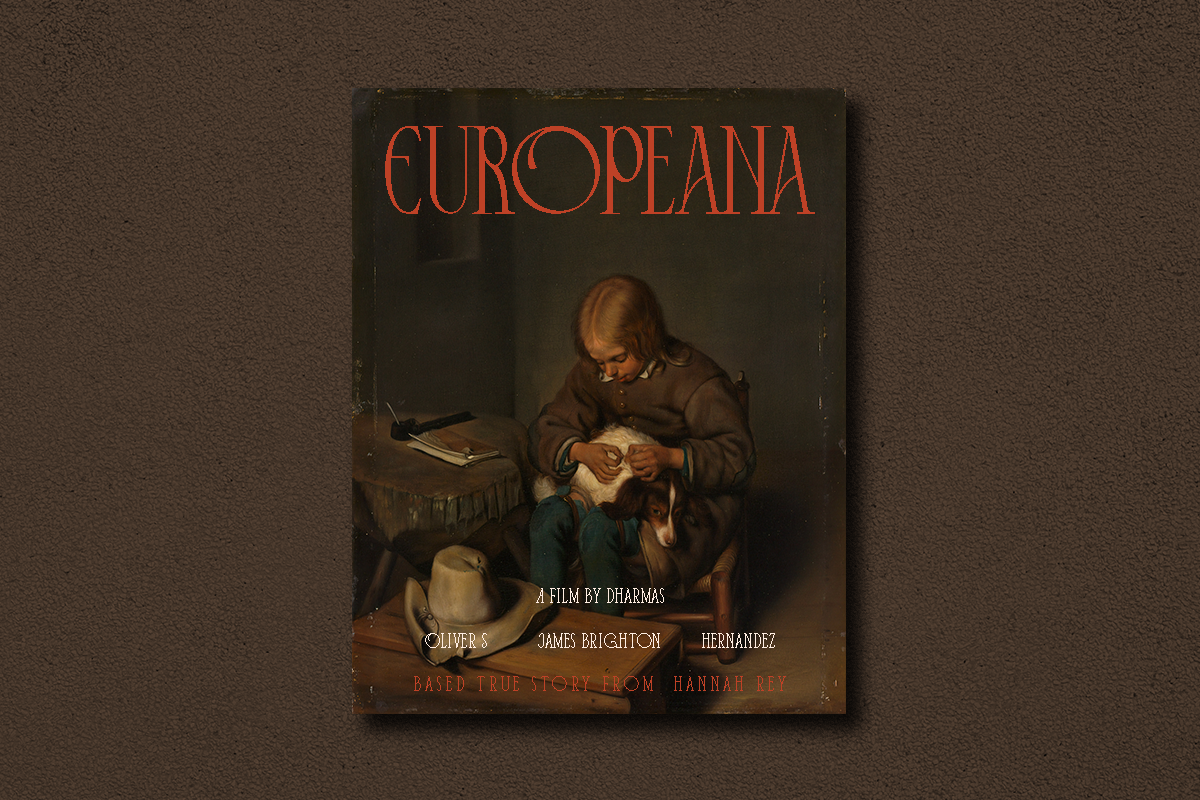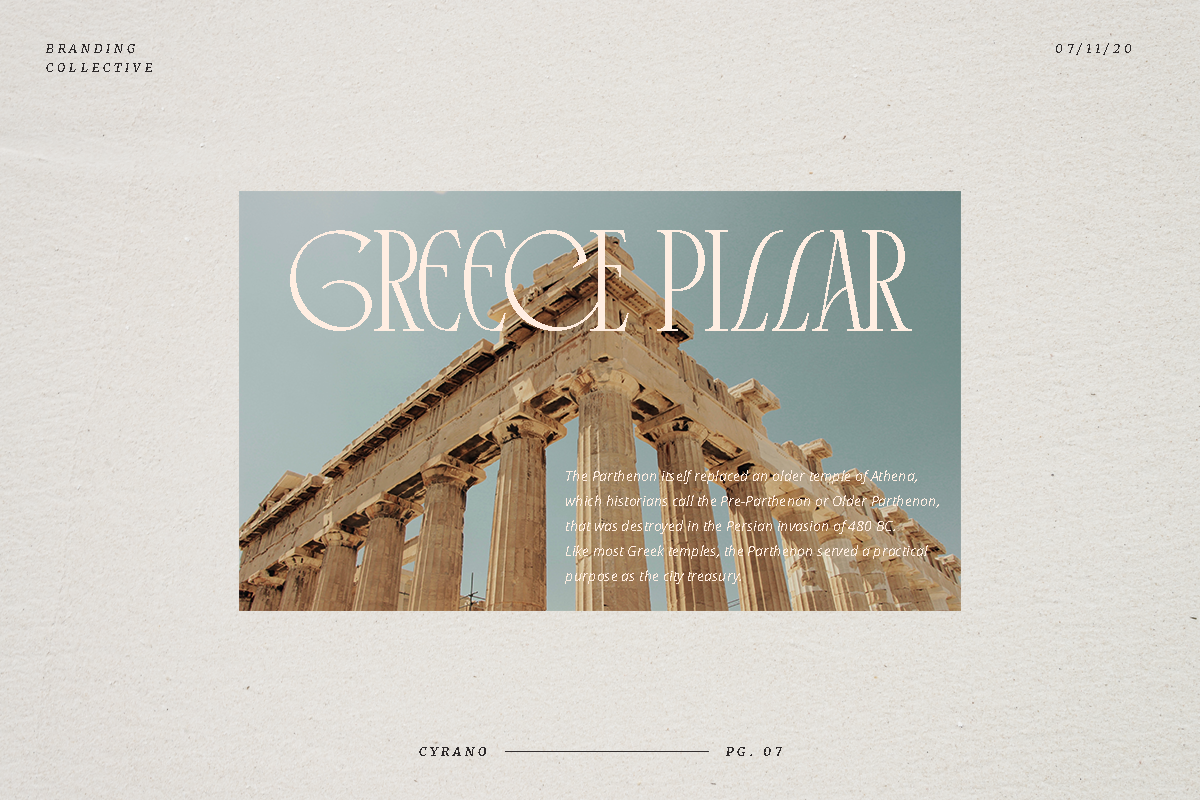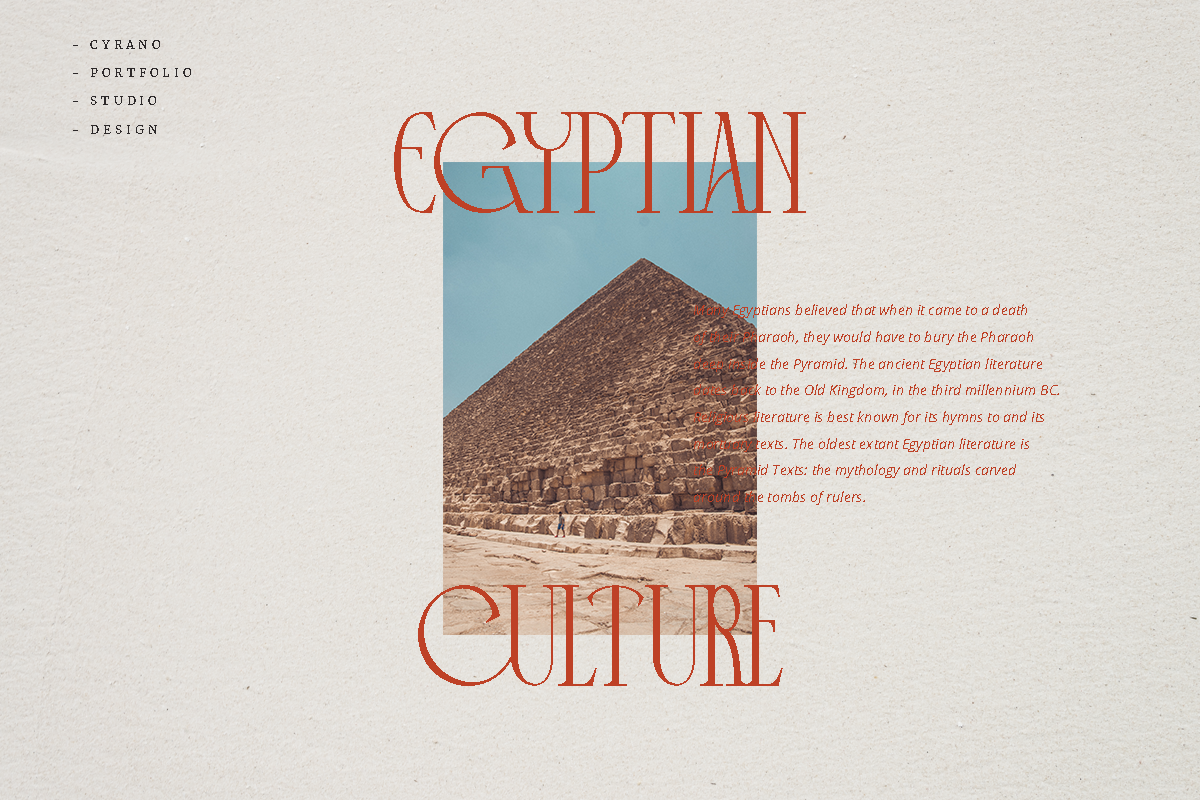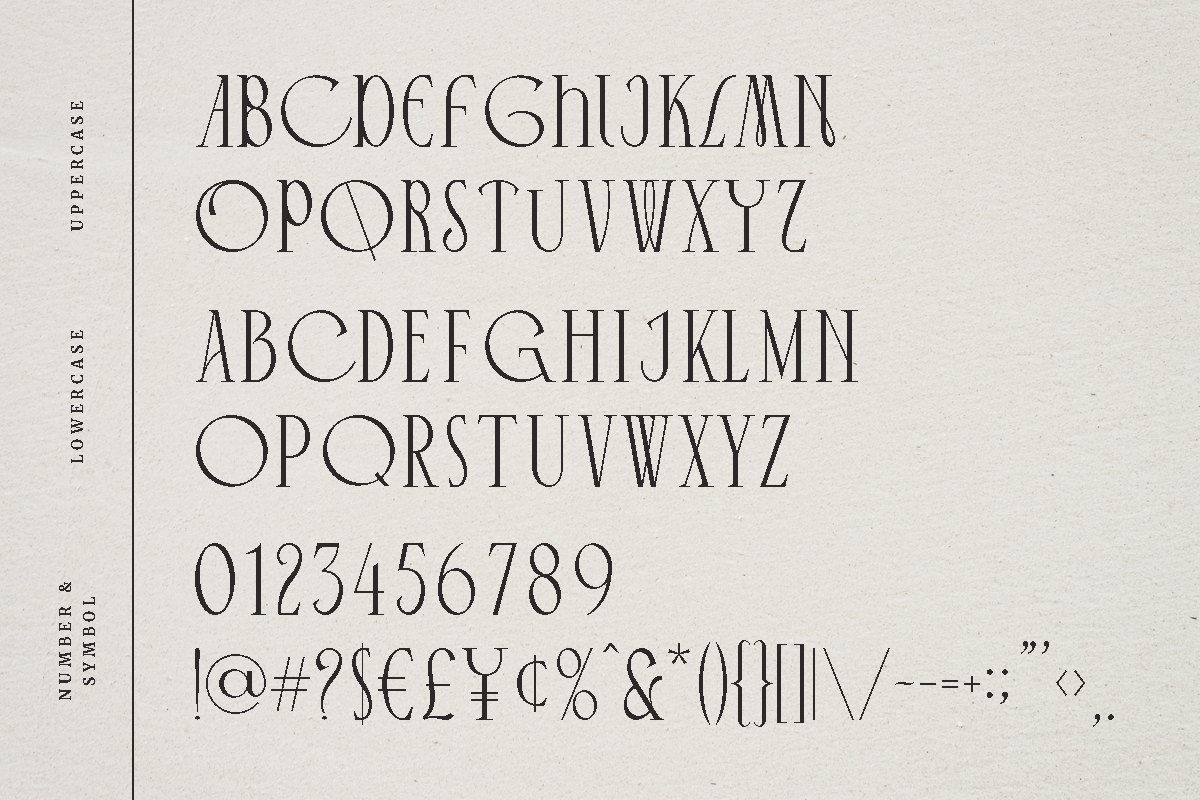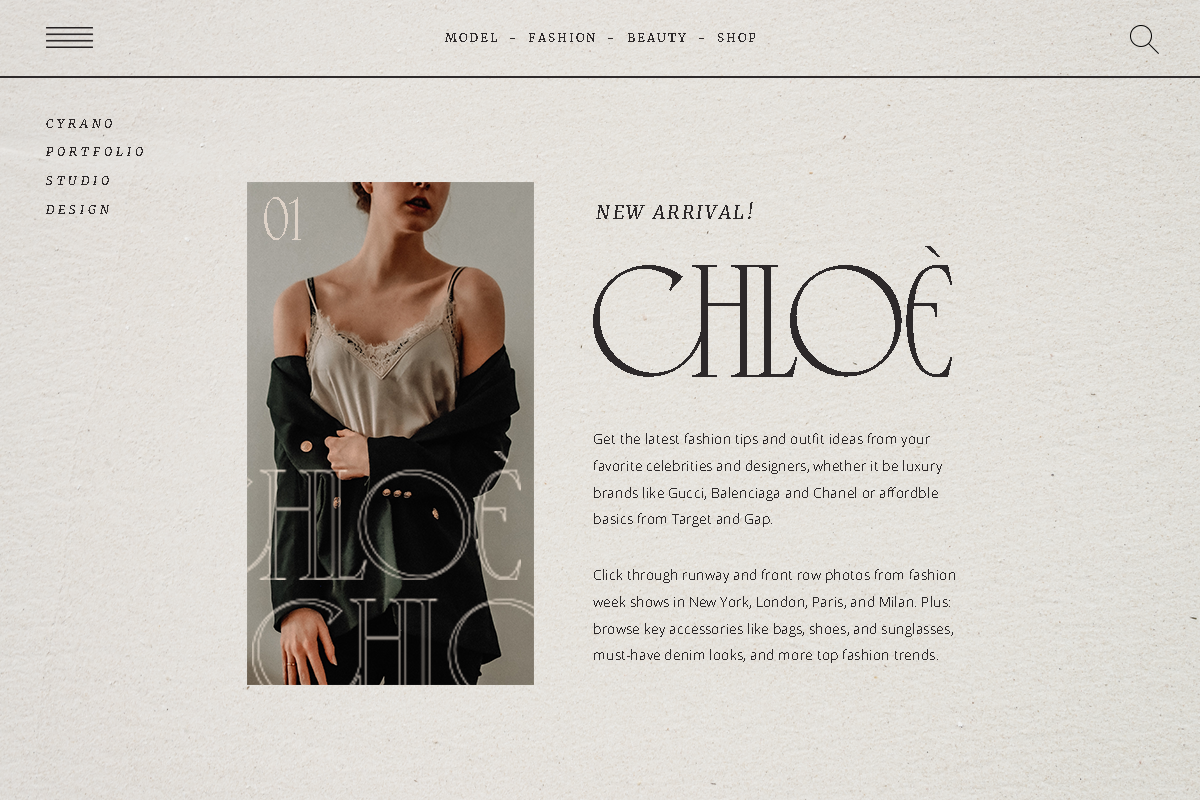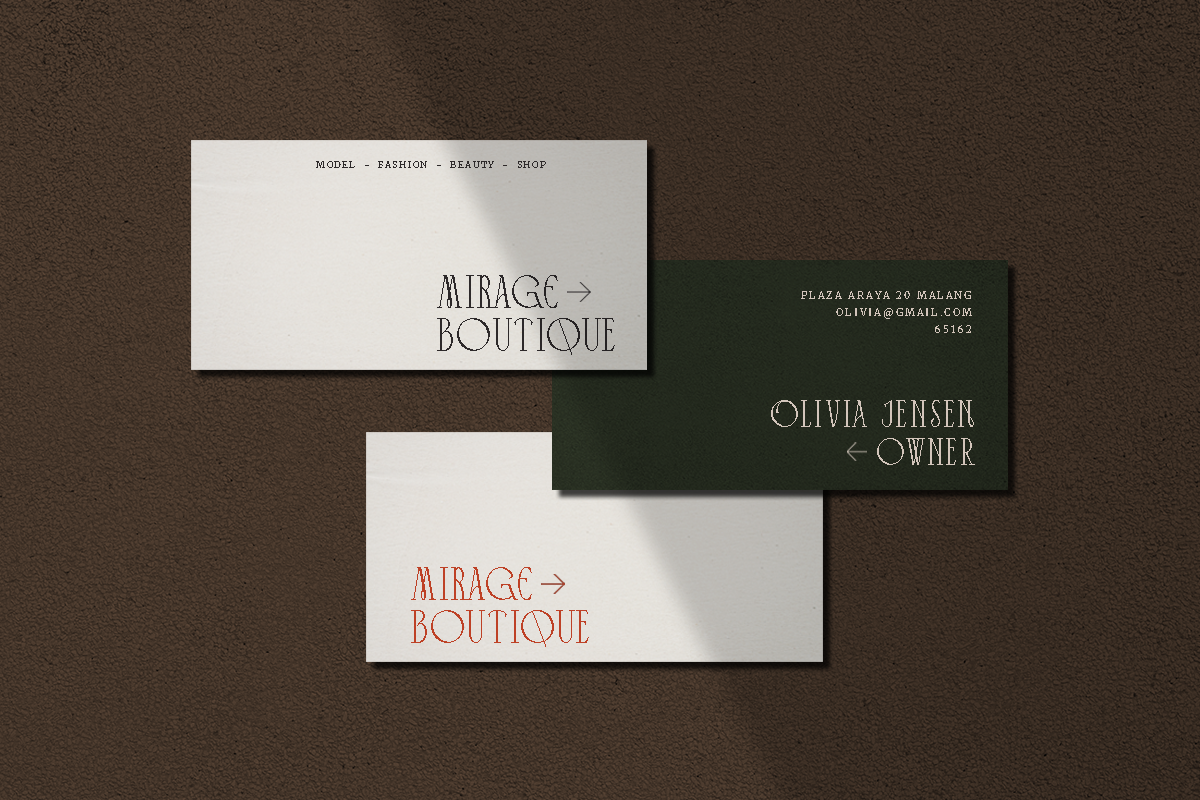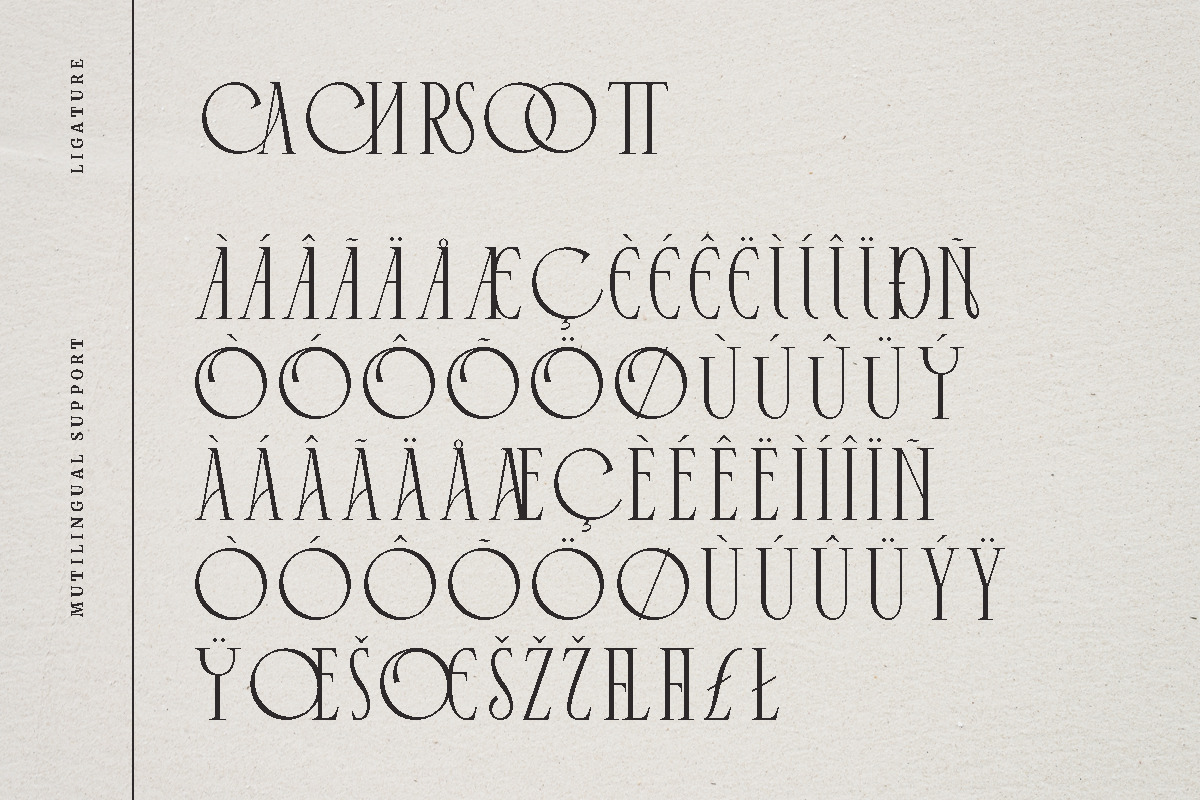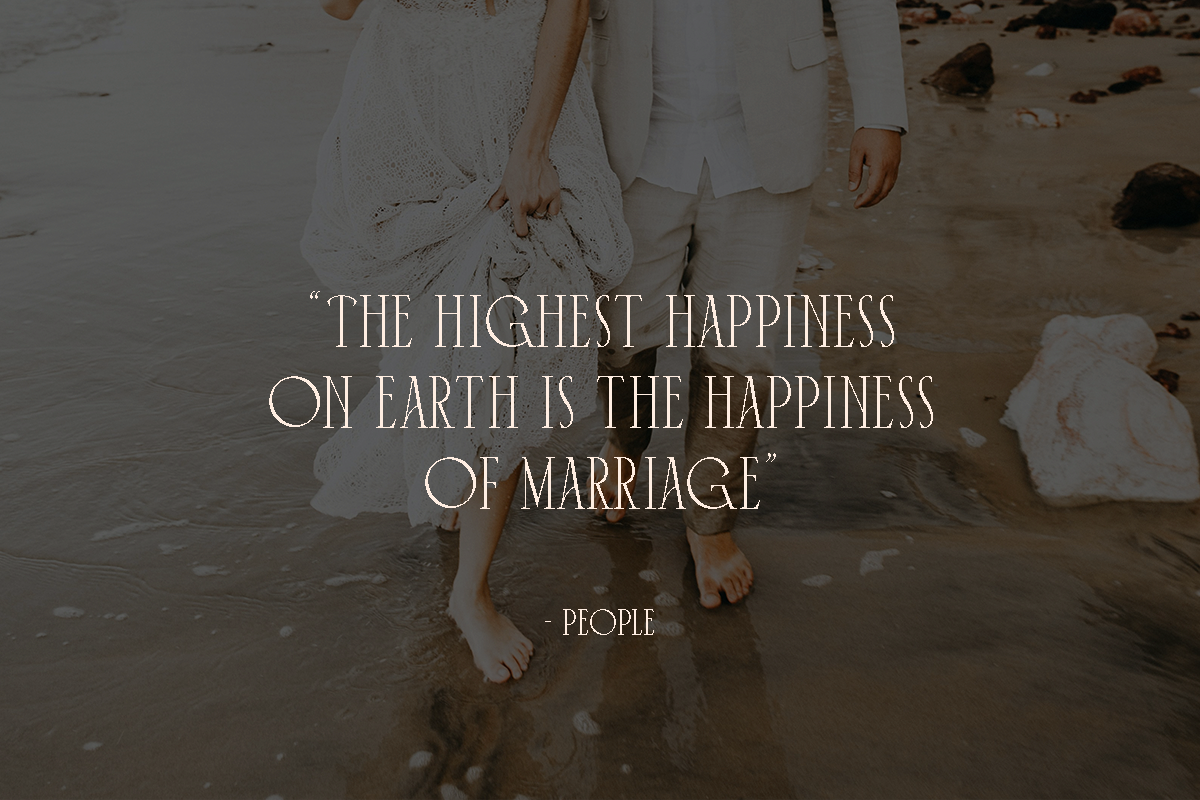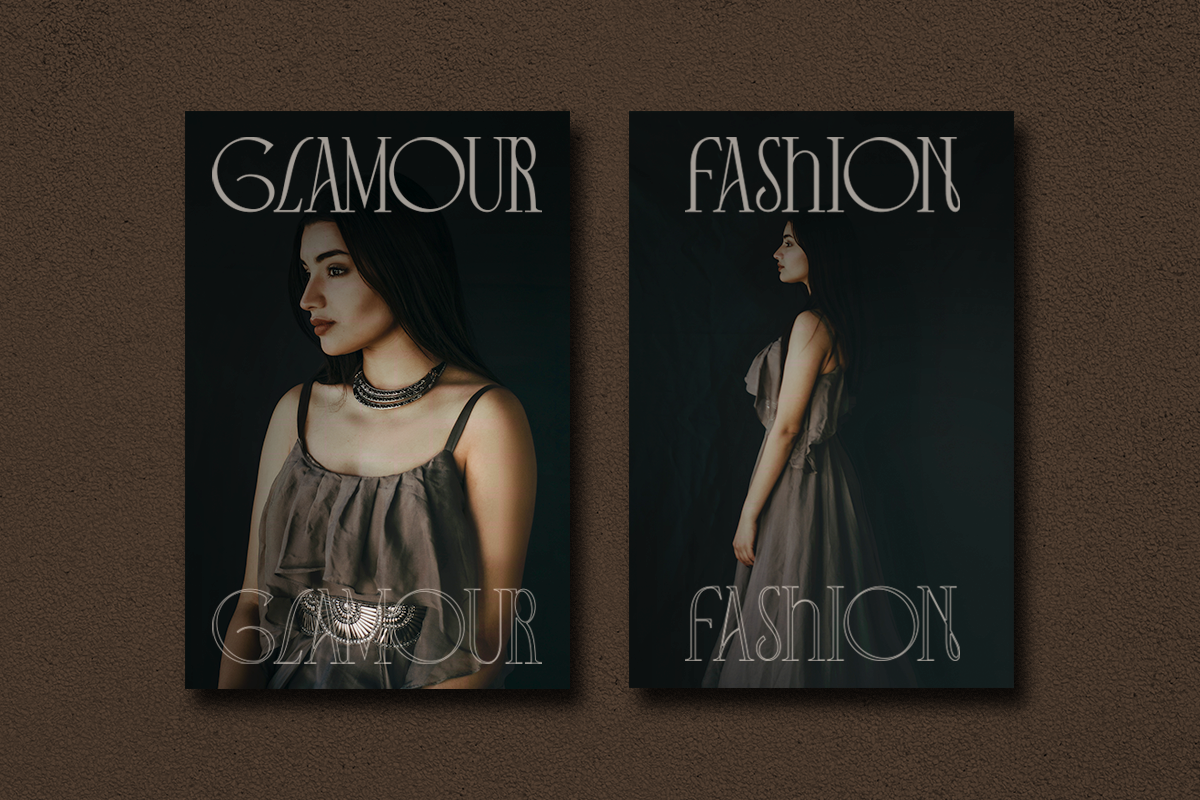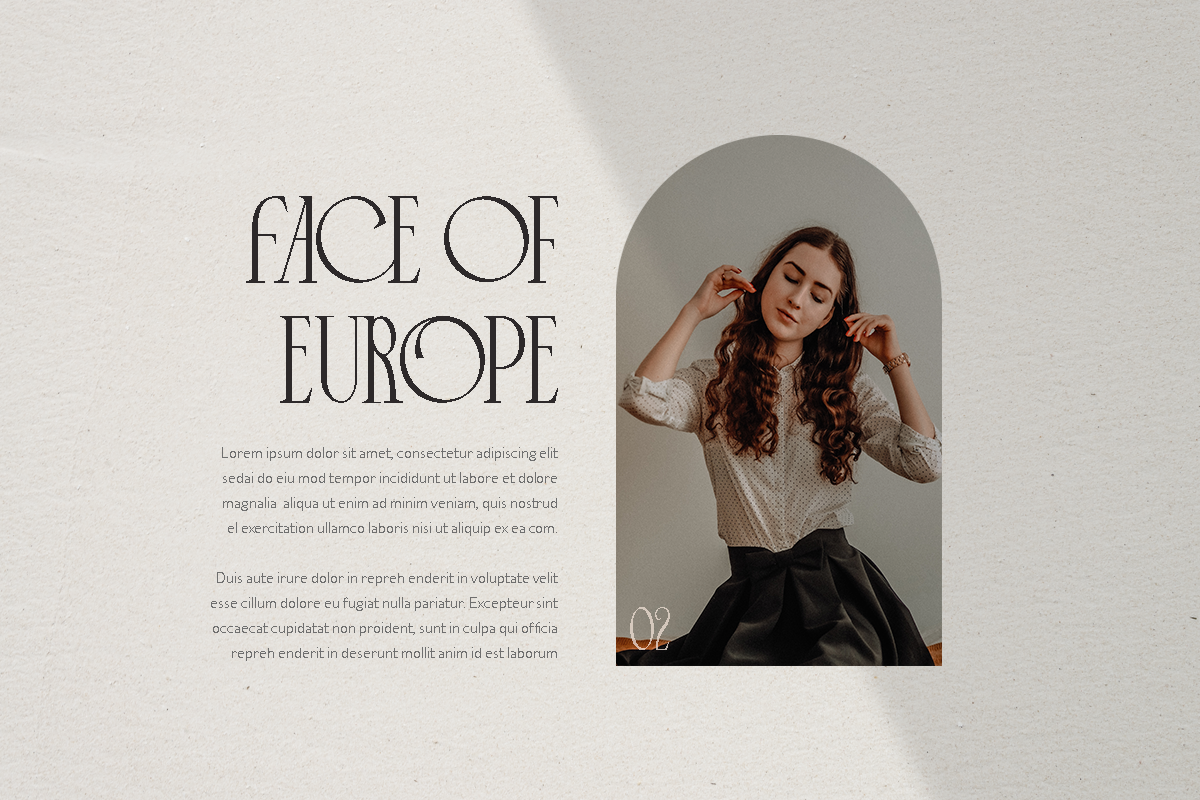
Cyrano - Unique Serif Typeface
Present to you for New Unique Serif, Cyrano!
Cyrano is unique serif font, every single letters have been carefully crafted to make your text looks fashionable and european style.
This font is specially designed for fashion-themed projects, perfectly suitable for creating elegant, chic, lifestyle design such as logos, title, magazine and more.
Cyrano has a lowercase that is uppercase letter and the uppercase is alternate, so you can change the alternative by just replacing it with uppercase, it's very easy right?
Letters, numbers, punctuation, multilingual support, and ligature